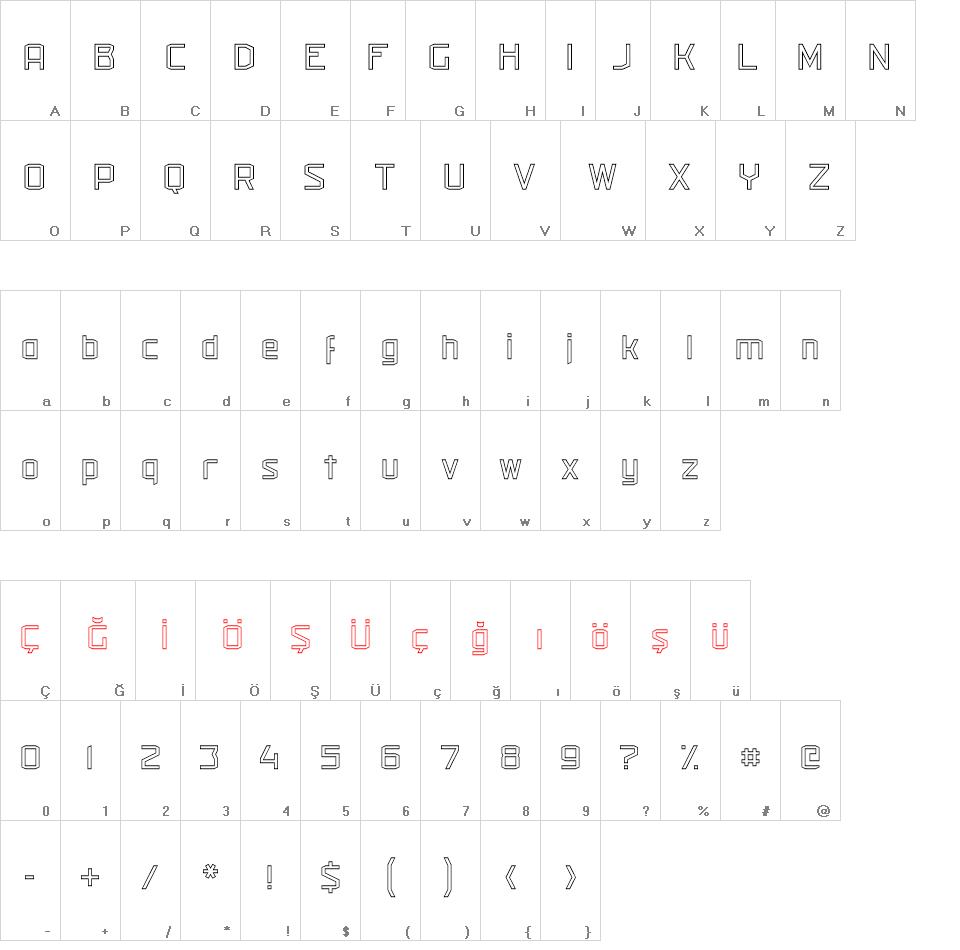
Militech Font font
Have you ever looked for an army font with lowercase letters and a generous amount of diacritics? Well, you've just found it!
Available in solid and outline to cover all your warmongering ideas.